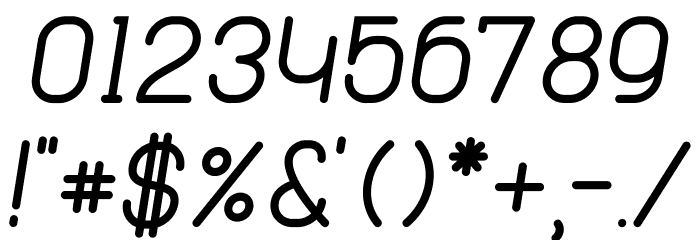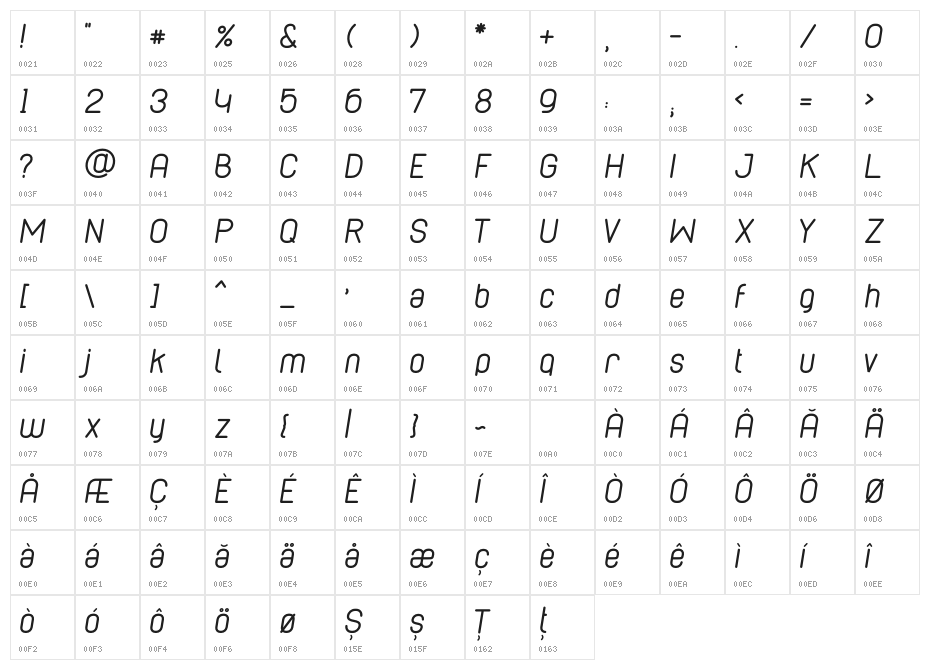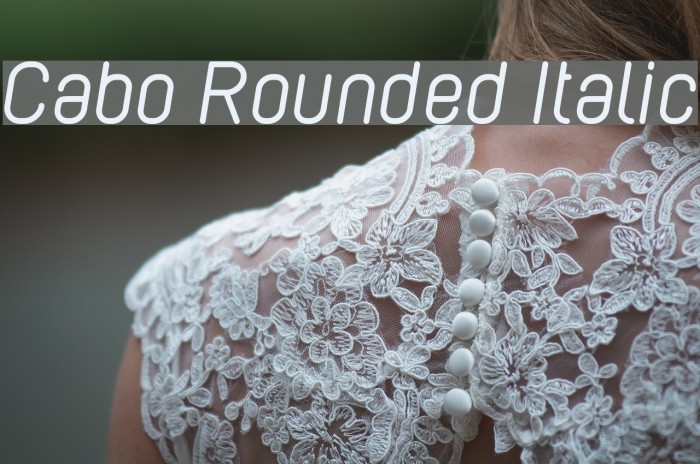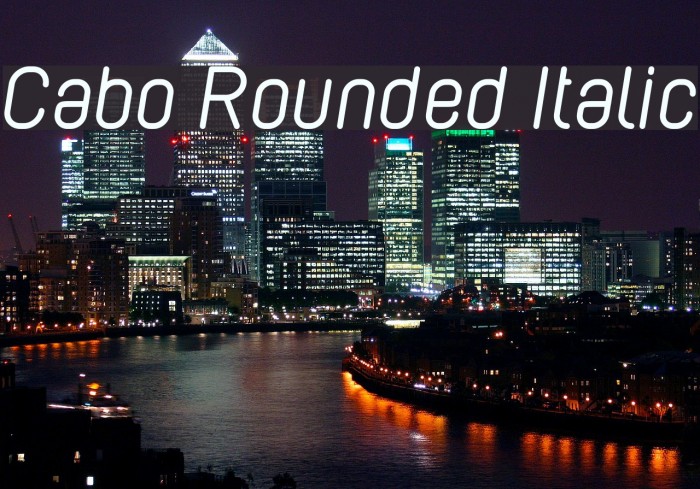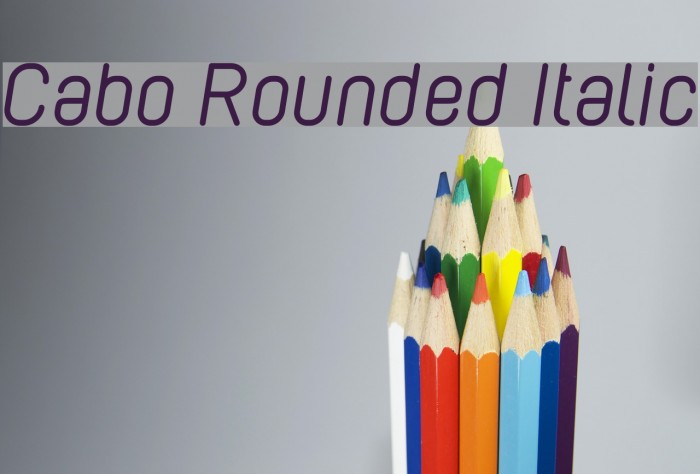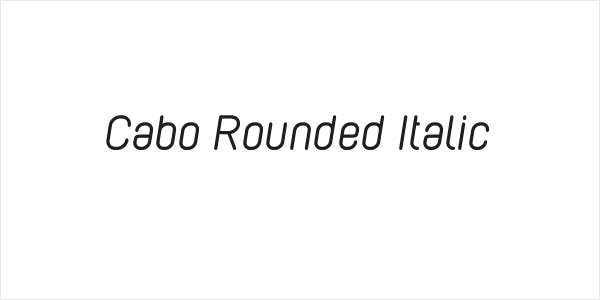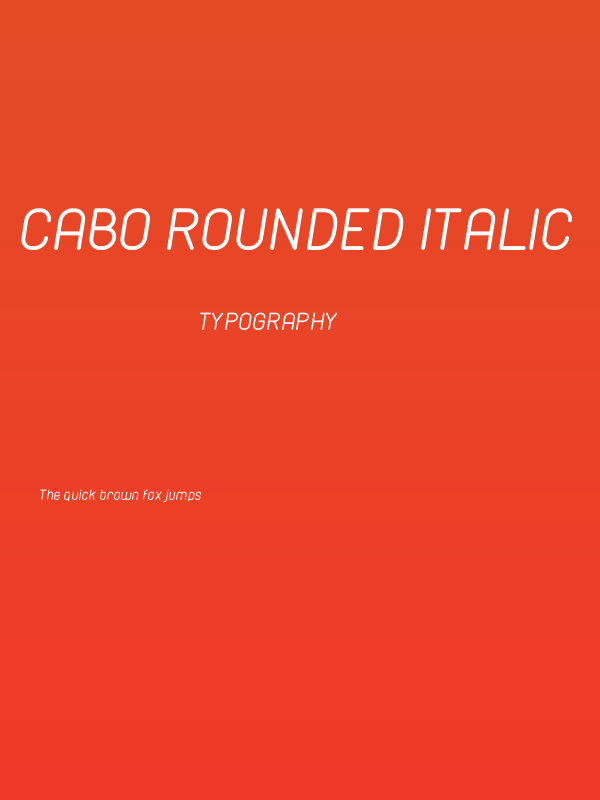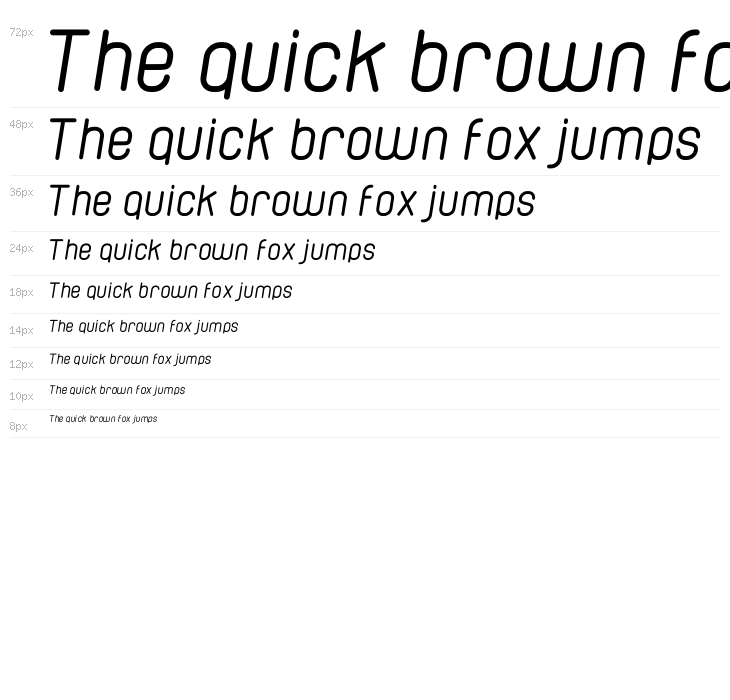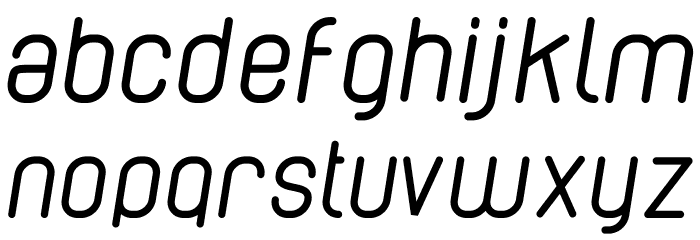
Cabo Rounded Italic Font
Cabo Rounded Italic Description
This font features a modern and sleek design with rounded edges, giving it a friendly and approachable appearance. The italic style adds a sense of motion and dynamism, making it suitable for contemporary projects. The characters are evenly spaced, ensuring readability while maintaining a stylish look. The font includes a full set of uppercase and lowercase letters, numbers, and a variety of special characters, making it versatile for different design needs. Its smooth curves and consistent line thickness contribute to a clean and polished aesthetic.
| Proposed Projects | Ideal for branding, advertising, digital interfaces, and modern print materials. |